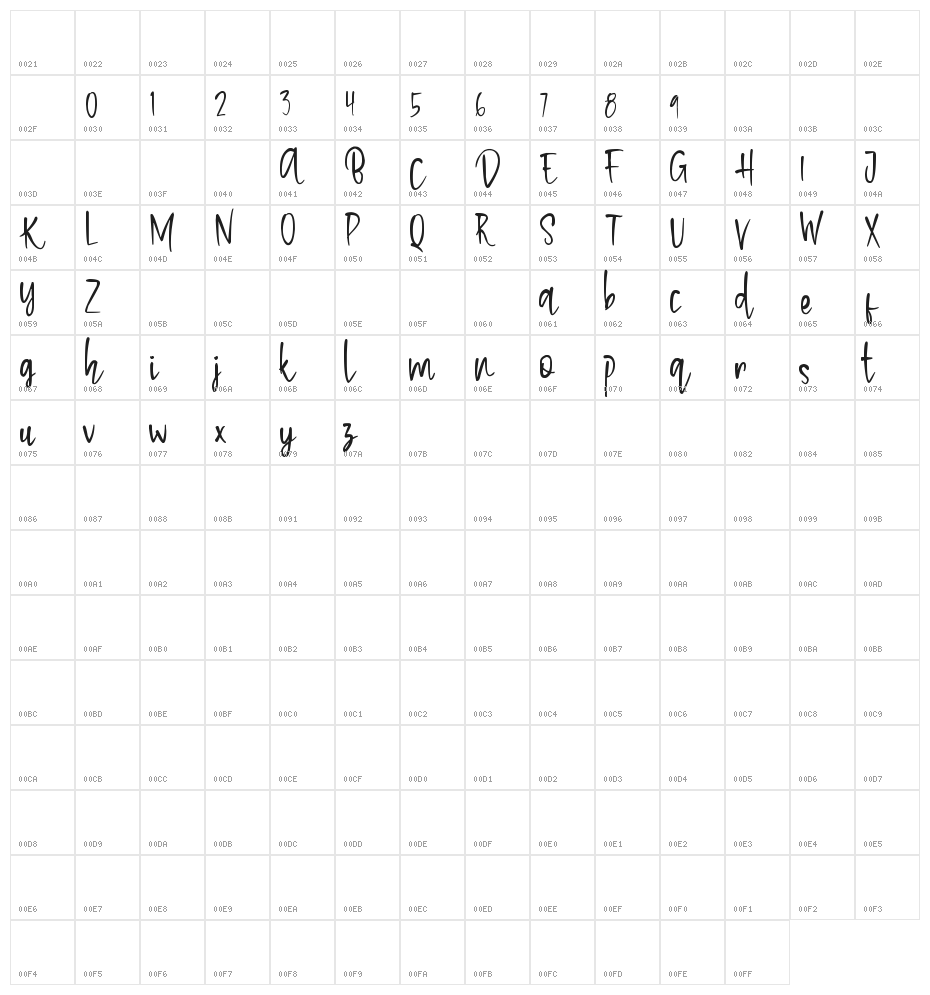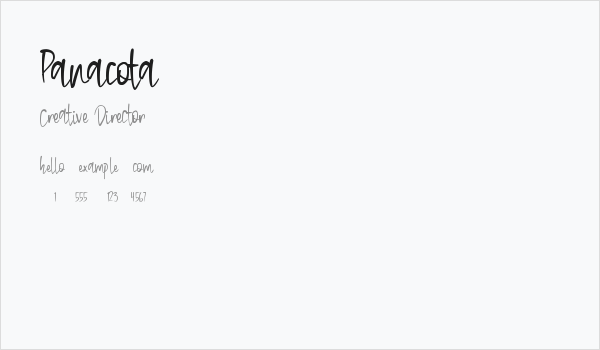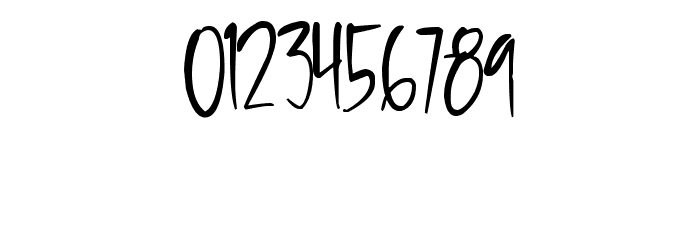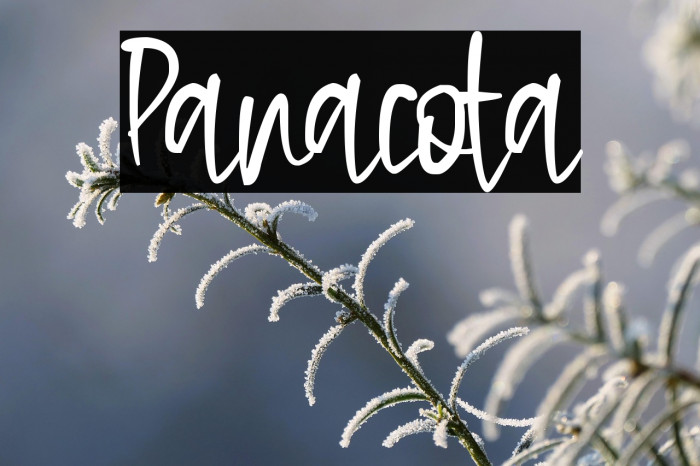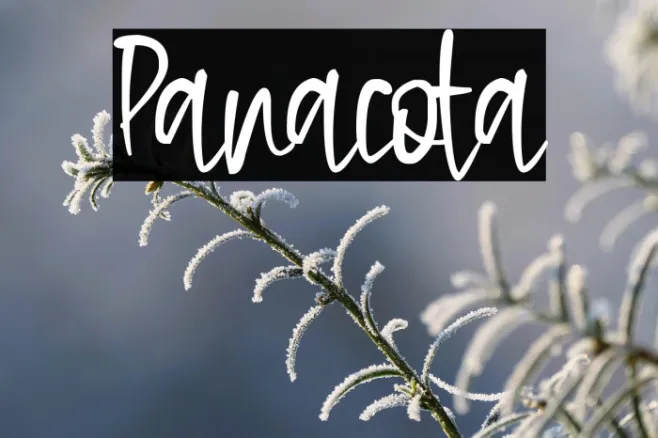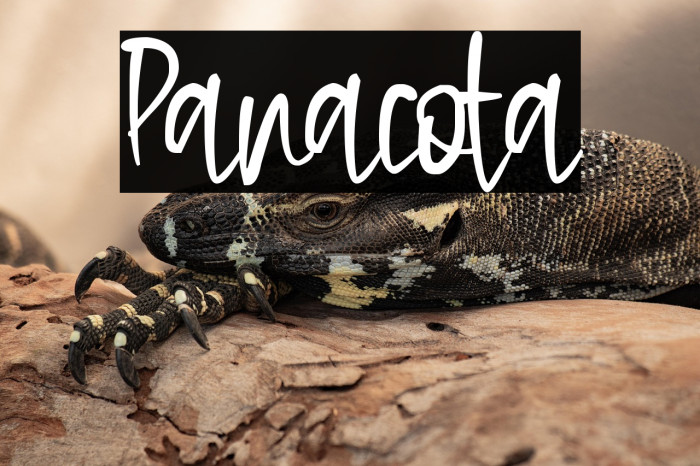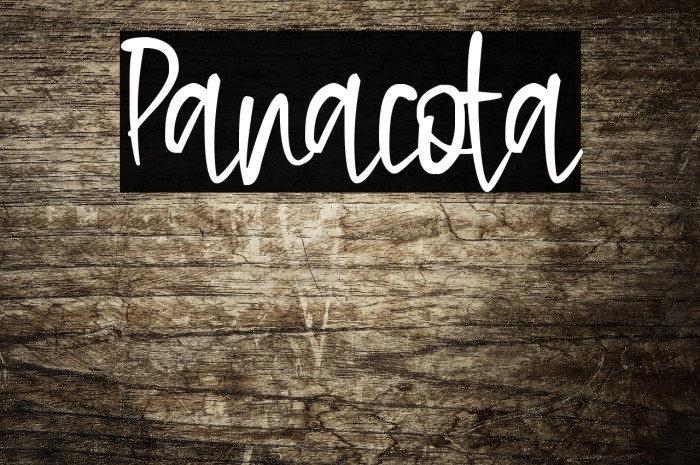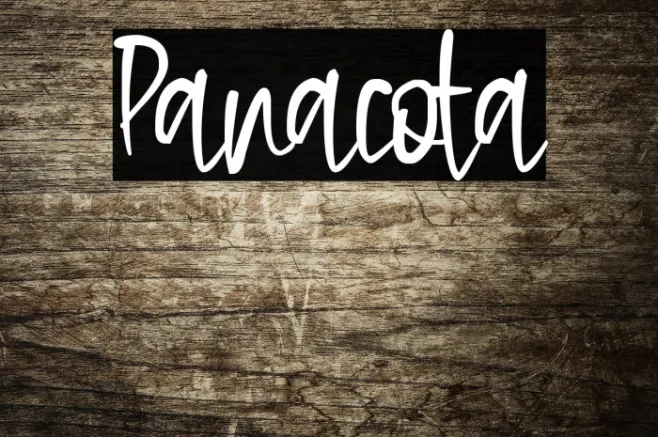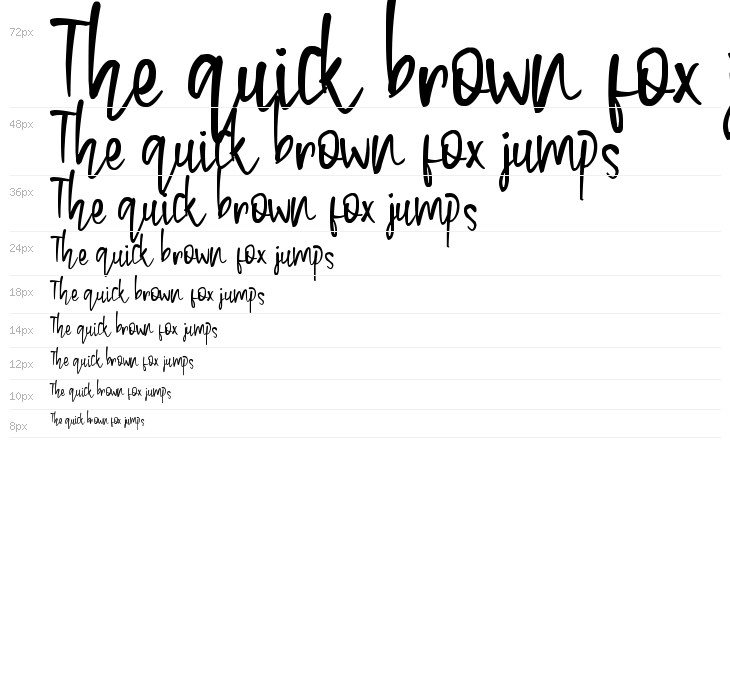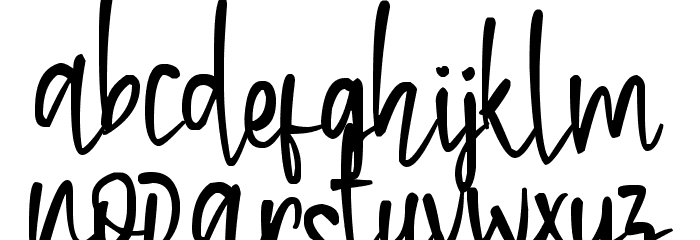
Panacota Font
Panacota Description
This font features a playful and informal handwritten style, characterized by its fluid and dynamic strokes. The letters exhibit a casual, yet artistic flair, with varying line thickness that adds a lively and spontaneous feel. The uppercase letters are bold and prominent, while the lowercase letters maintain a consistent flow, enhancing readability. The numerals are distinct and maintain the same playful quality, making them suitable for a variety of creative applications. The special characters are integrated seamlessly, complementing the overall aesthetic. This font is ideal for projects that require a personal touch, such as invitations, greeting cards, or branding materials that aim to convey warmth and approachability.
| Overall Style | Casual, Artistic |
| Proposed Projects | Ideal for invitations, greeting cards, personal branding, and creative projects requiring a warm, approachable style. |